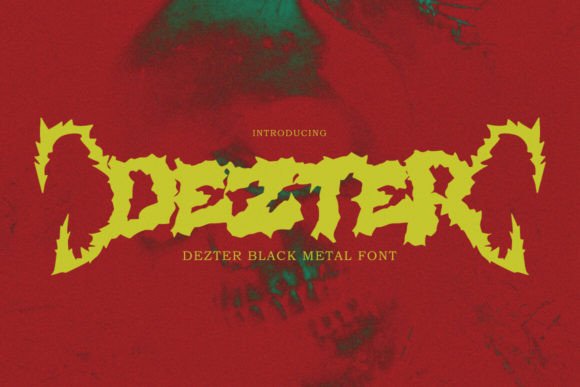
Introducing Dezter Font, the perfect choice for those seeking to create a captivating logo for their Underground band or any other venture. This stunning display font, created by Tebaltipis.std, is here to breathe life into your designs and make a bold statement.
With Dezter Font, you can add a touch of edginess and uniqueness to your brand. The font's alternate front and ending letters allow you to experiment with different styles, giving your logo a dynamic and eye-catching appeal. Say goodbye to generic and mundane designs – Dezter Font is here to make your brand stand out from the crowd.
But Dezter Font is not just about looks – it comes packed with a versatile character set that caters to the extreme music sector. If you're a fan of Death- and black metal, you'll find an array of symbols and signs that perfectly capture the essence of this genre. From pentagram drops to roots and spikes, these elements will add a touch of darkness and mystique to your designs.
What sets Dezter Font apart is its ability to evoke emotional responses from your audience. Its captivating and bold appearance instantly grabs attention, leaving a lasting impression on anyone who lays eyes on it. Whether you're looking to create merchandise for your band or establish a strong visual identity for your brand, Dezter Font is your ultimate weapon.